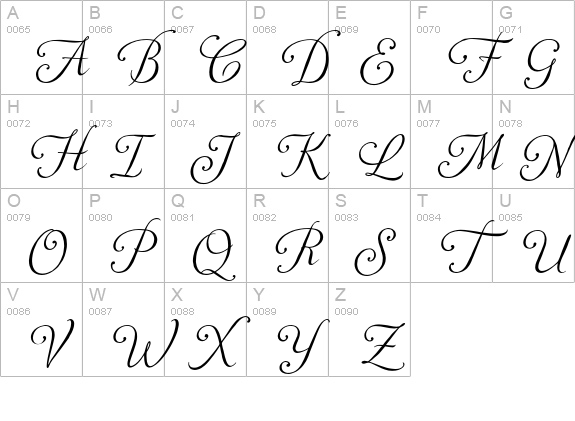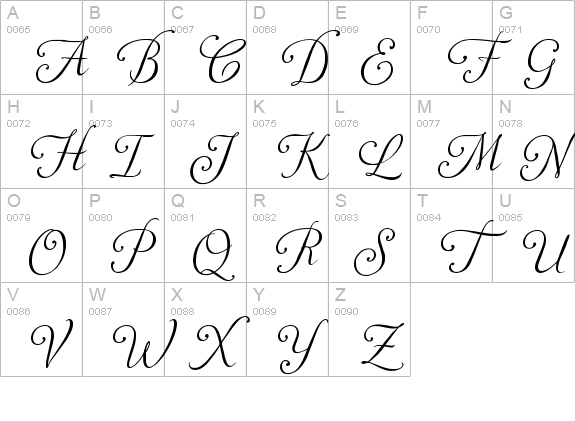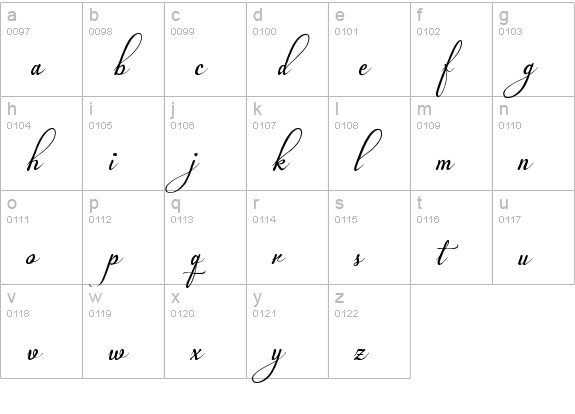
Plebeya Swash is a beautifully crafted font that exudes elegance and sophistication. With its stylish swashes and intricate details, this typeface is perfect for adding a touch of luxury to your designs. The flowing curves and graceful lines of Plebeya Swash make it ideal for wedding invitations, branding projects, and more. What sets Plebeya Swash apart is that it is not only stunningly designed, but also completely free to download. That's right, you can elevate your projects with this exquisite font without spending a dime. Simply head over to FontsMarket.com to access this gem of a typeface and start creating stunning visuals that will leave a lasting impression. Download Plebeya Swash today and let your creativity shine!